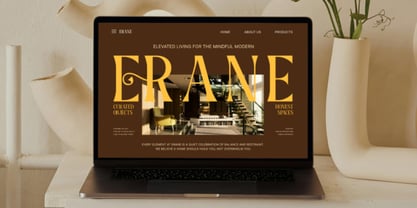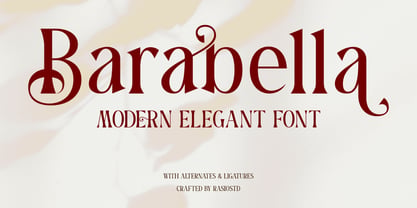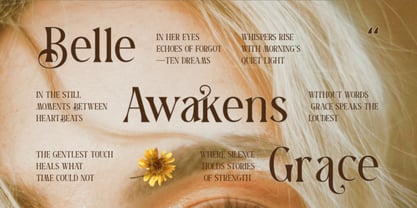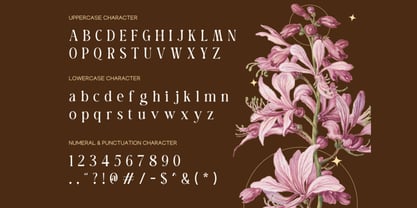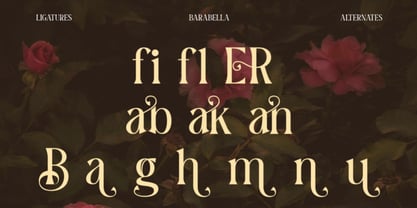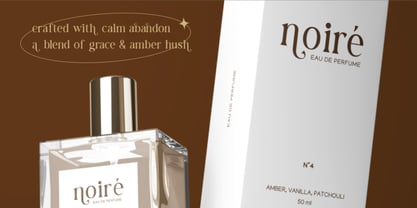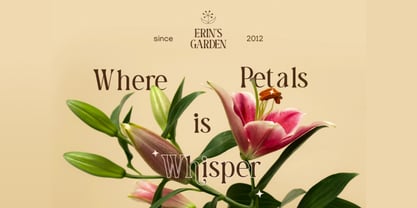
Barabella
by Rasio Studio
The Barabella Font Family was designed by Fajar Indra and published by Rasio Studio. Barabella contains 1 styles. More about this family
Barabella is a modern elegant serif typeface designed with graceful curves, refined contrast, and delicate decorative details that create a timeless and luxurious impression. The letterforms feature slender stems, soft serifs, and stylish swashes that bring sophistication and charm to every word. Relevance and Use Cases is perfect for wedding invitations, beauty and fashion branding, luxury packaging, editorial magazines, boutique logos, social media designs, product labels, and refined marketing materials that require elegant, romantic, and sophisticated typography.
Designers: Fajar Indra
Foundry: Rasio Studio